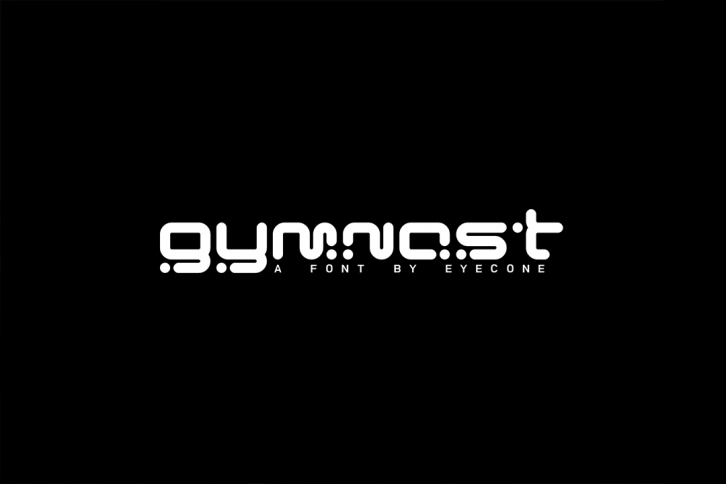
Gymnast is a great font that was designed by EyeCone. Imagine the amount of combinations you can create using this font! The archive is 5.74 MB and it was released on April 8, 2019. Gymnast looks beautiful on wedding invitations, greeting cards, logos, posters, labels, t-shirt designs, logos, business cards and is perfect for use in ink or watercolor works, fashion, magazines, packaging and food menus, children's books and more!